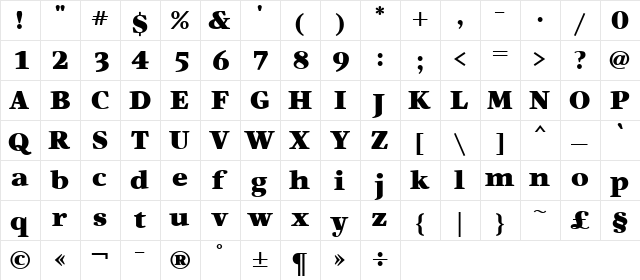
Artemius Black TT Regular
Design Context for Artemius Black TT Typeface
Artemius Black TT takes a measured approach to typography — its balanced proportions and neutral character make it a reliable workhorse for both digital and print work.